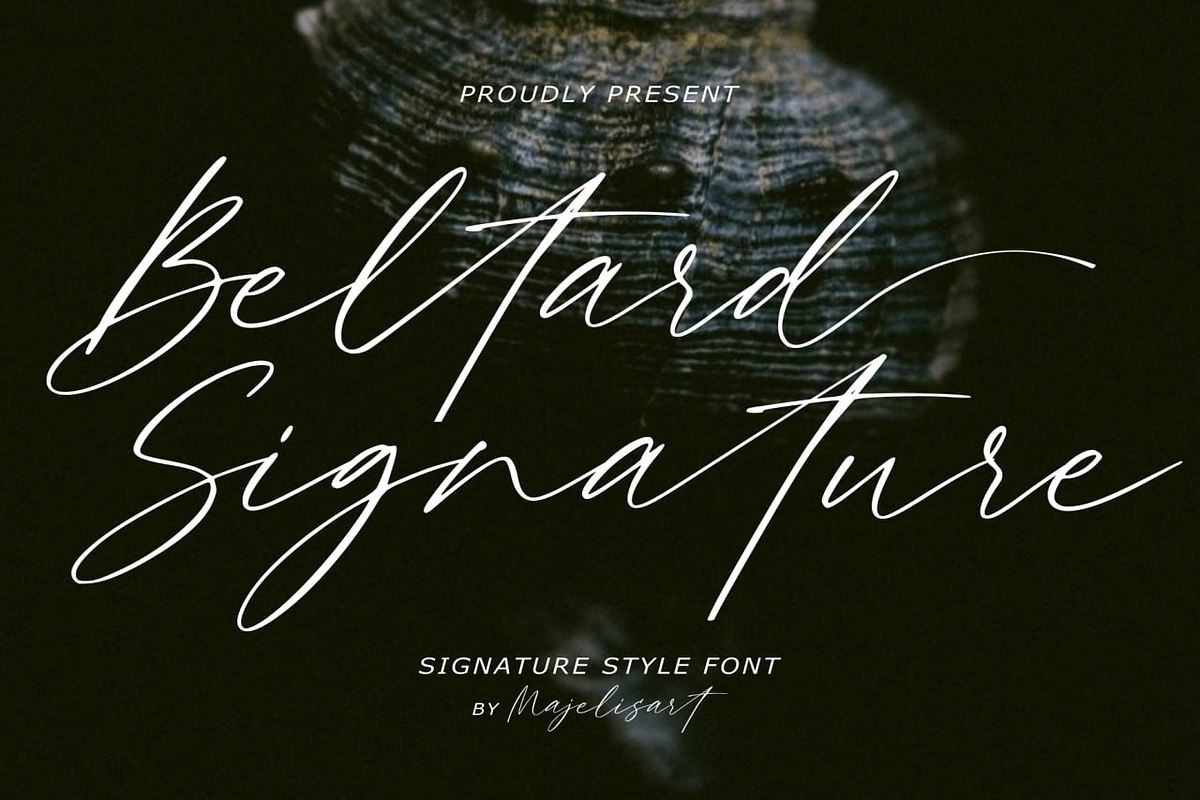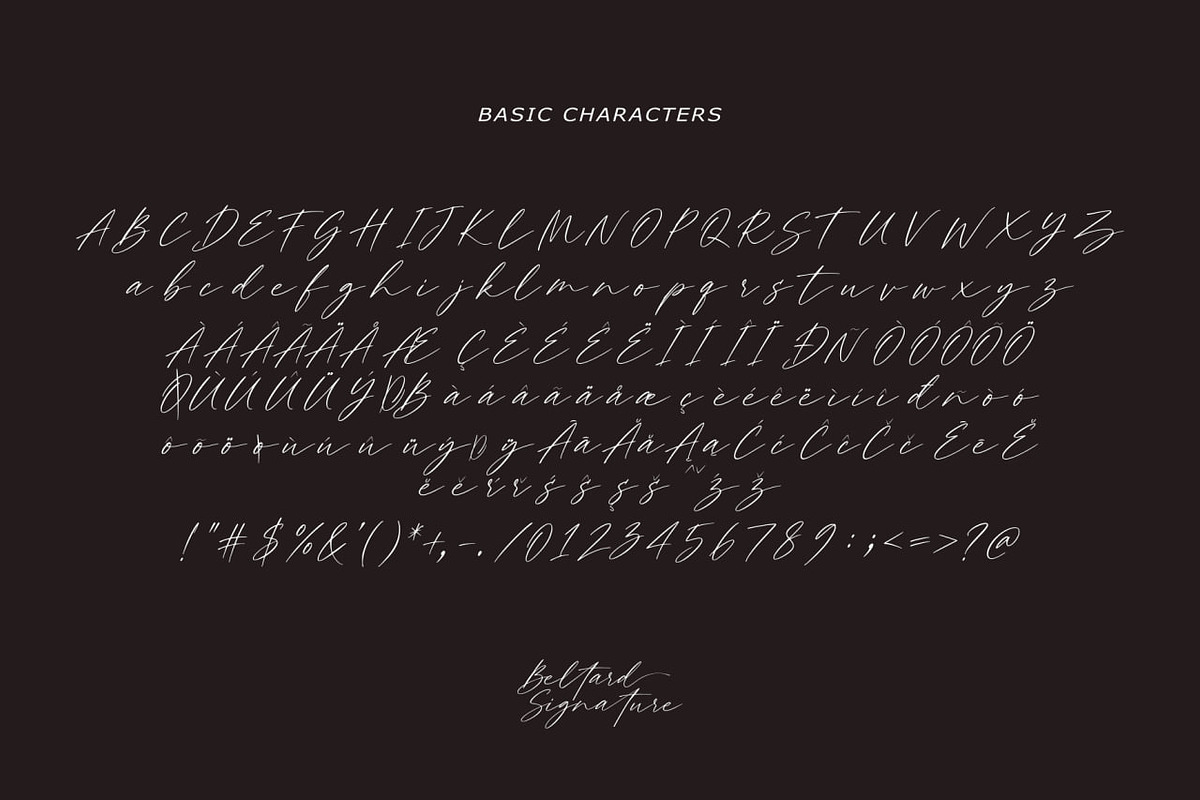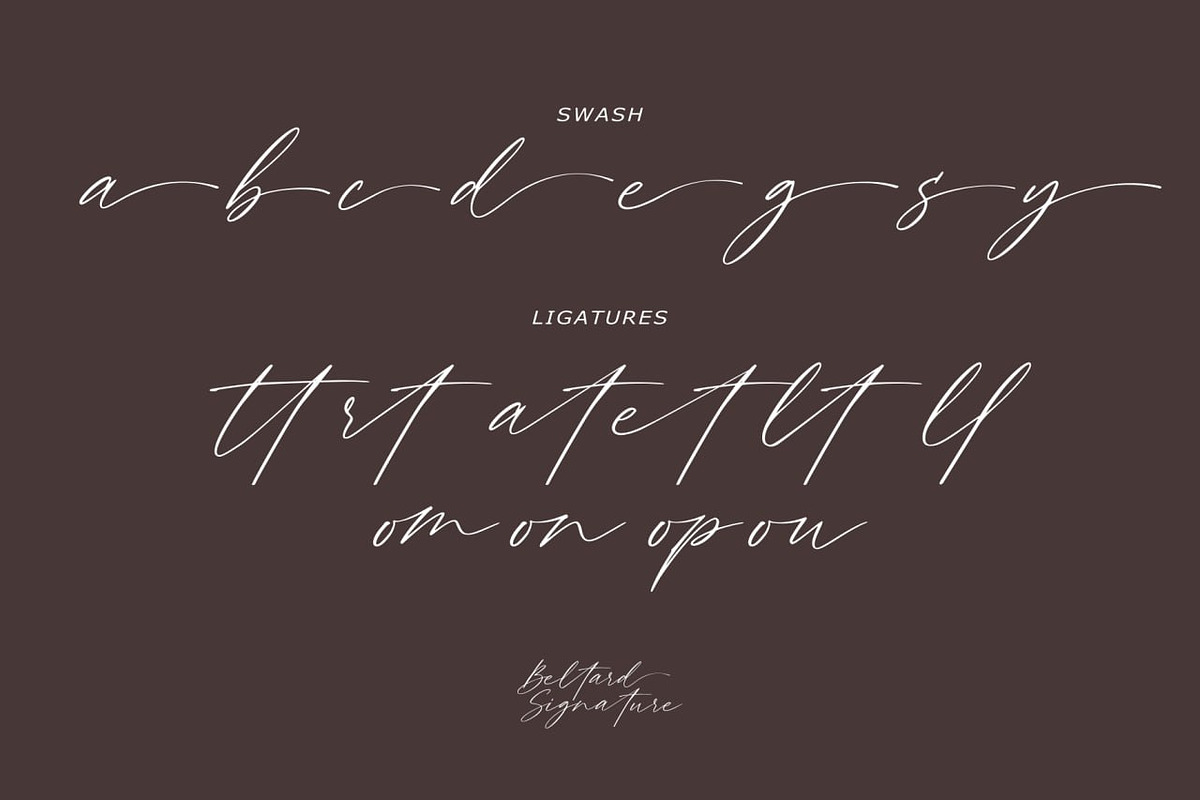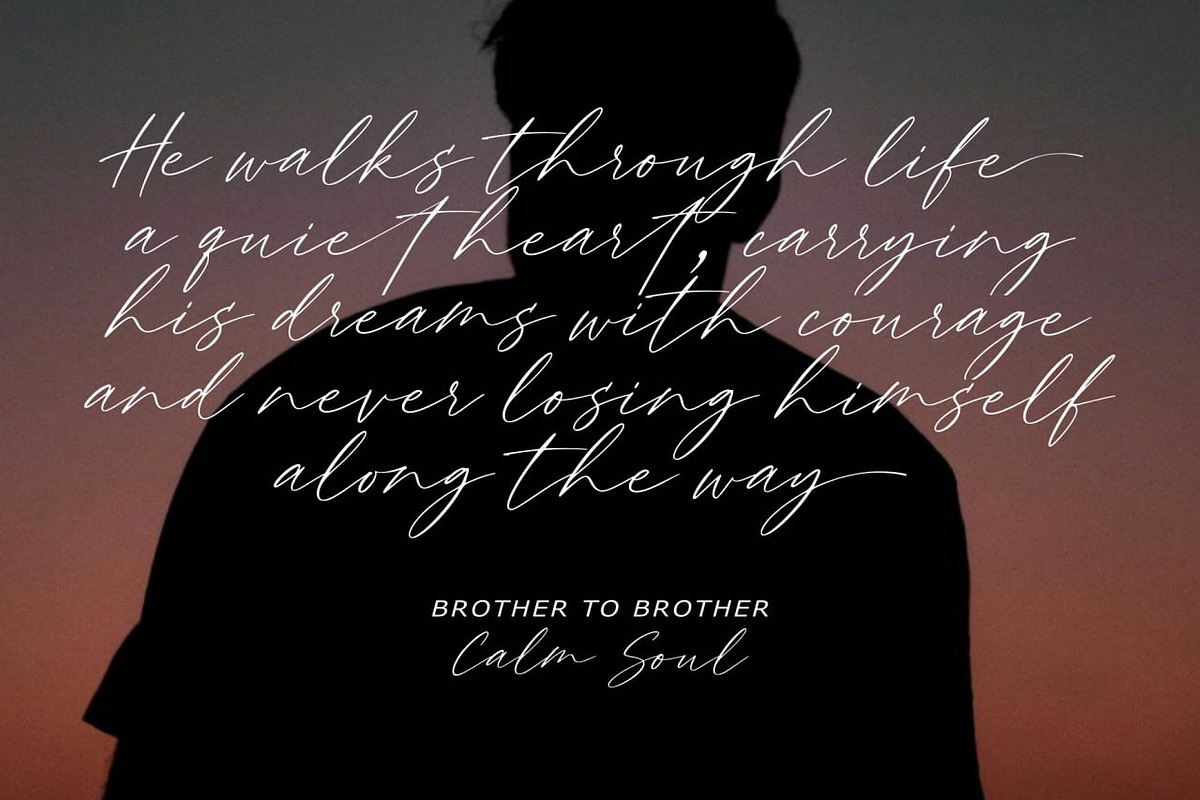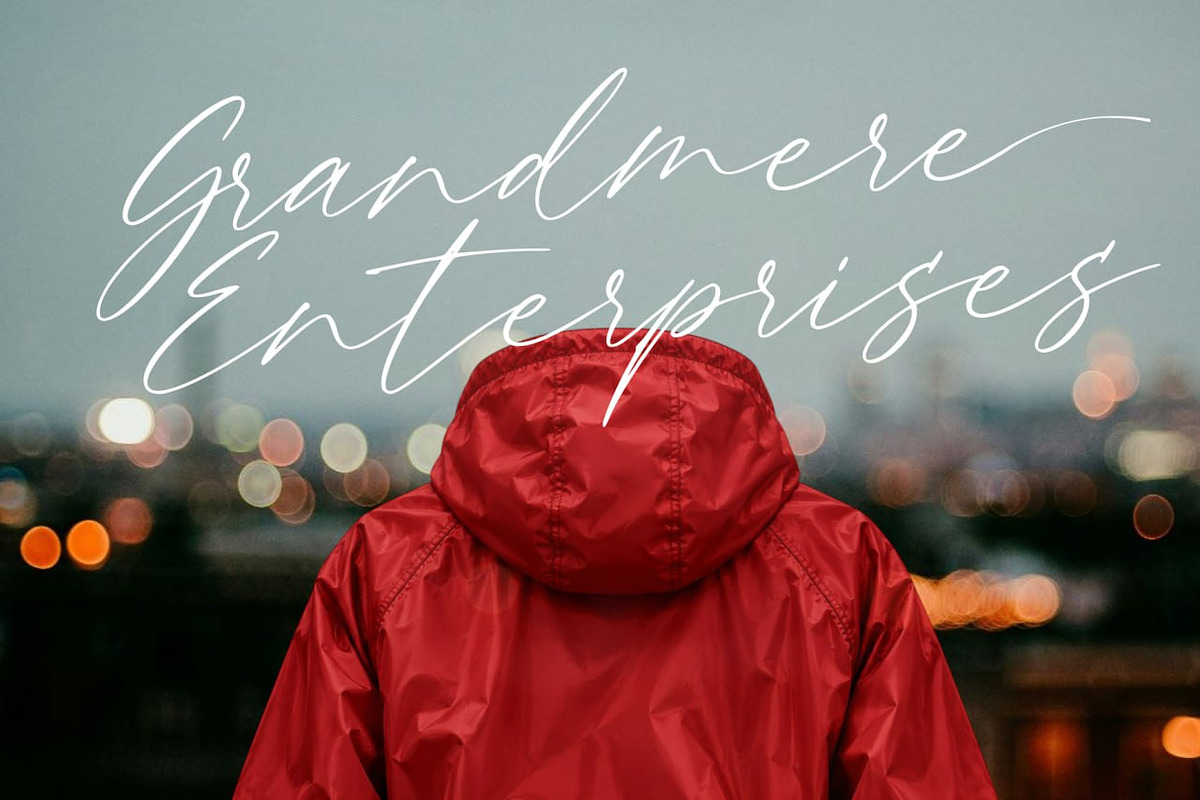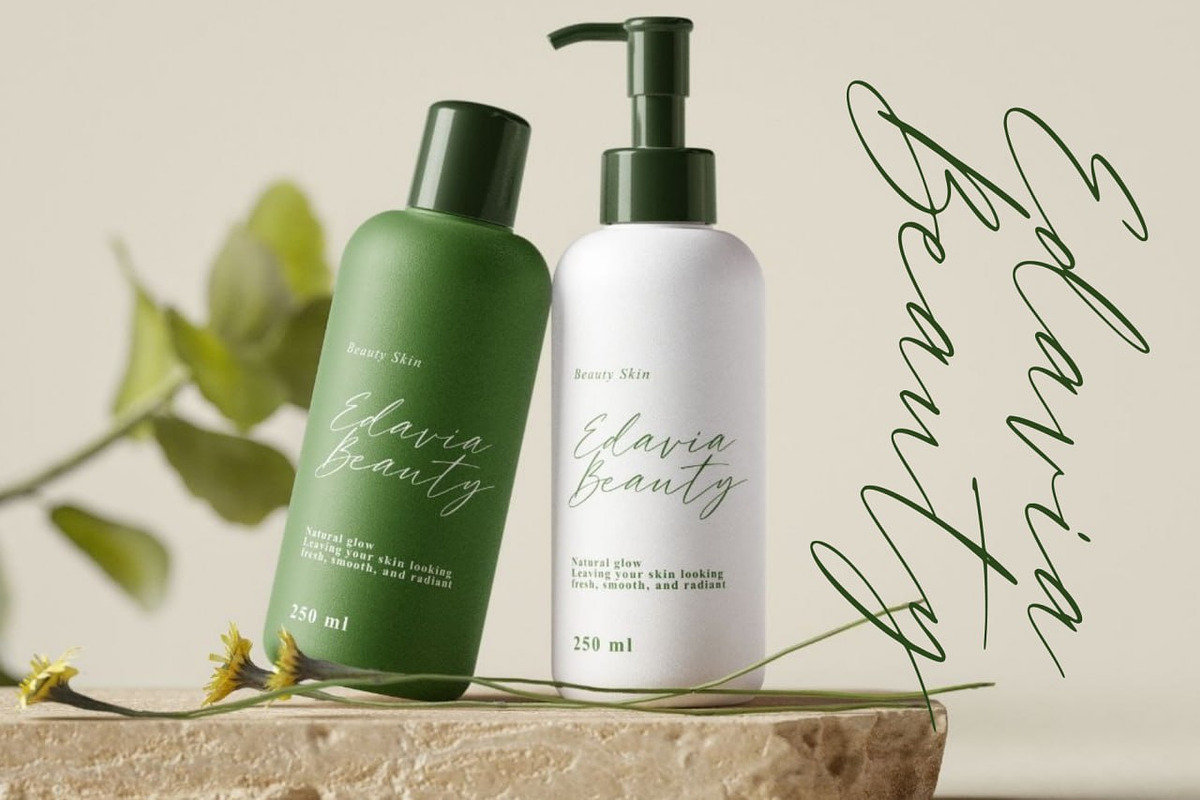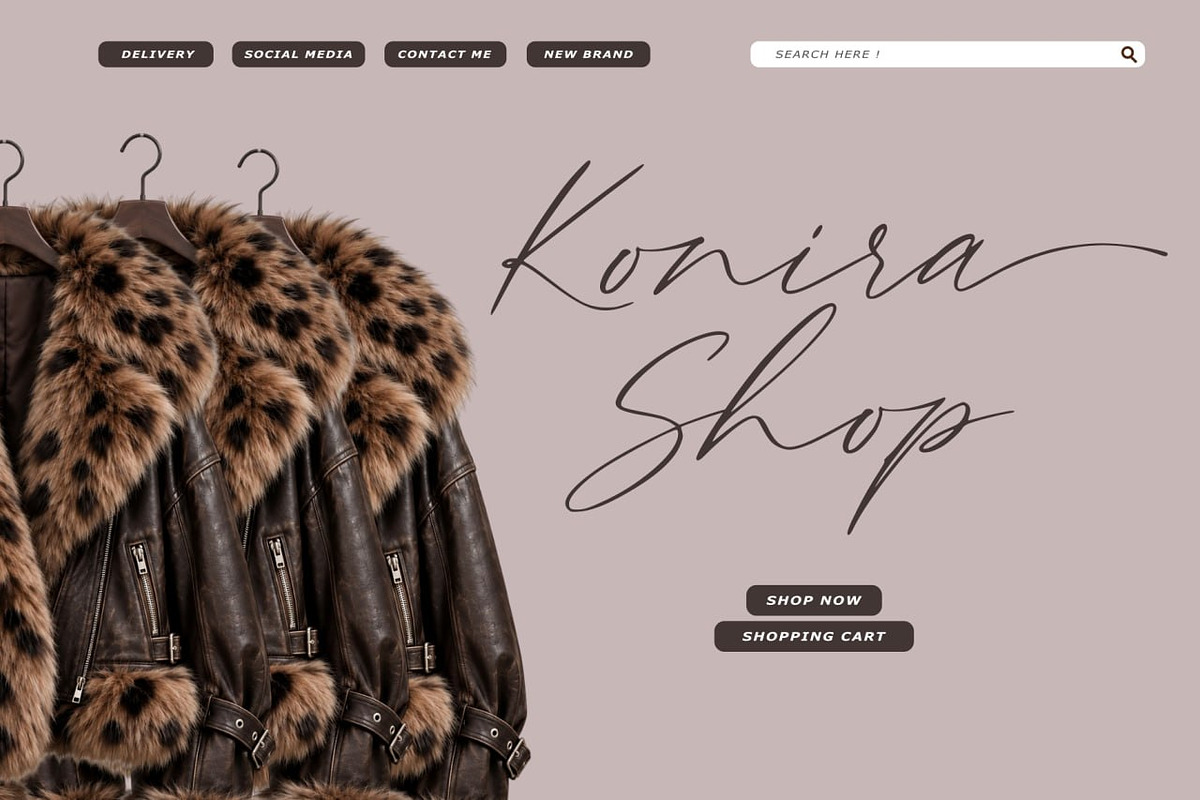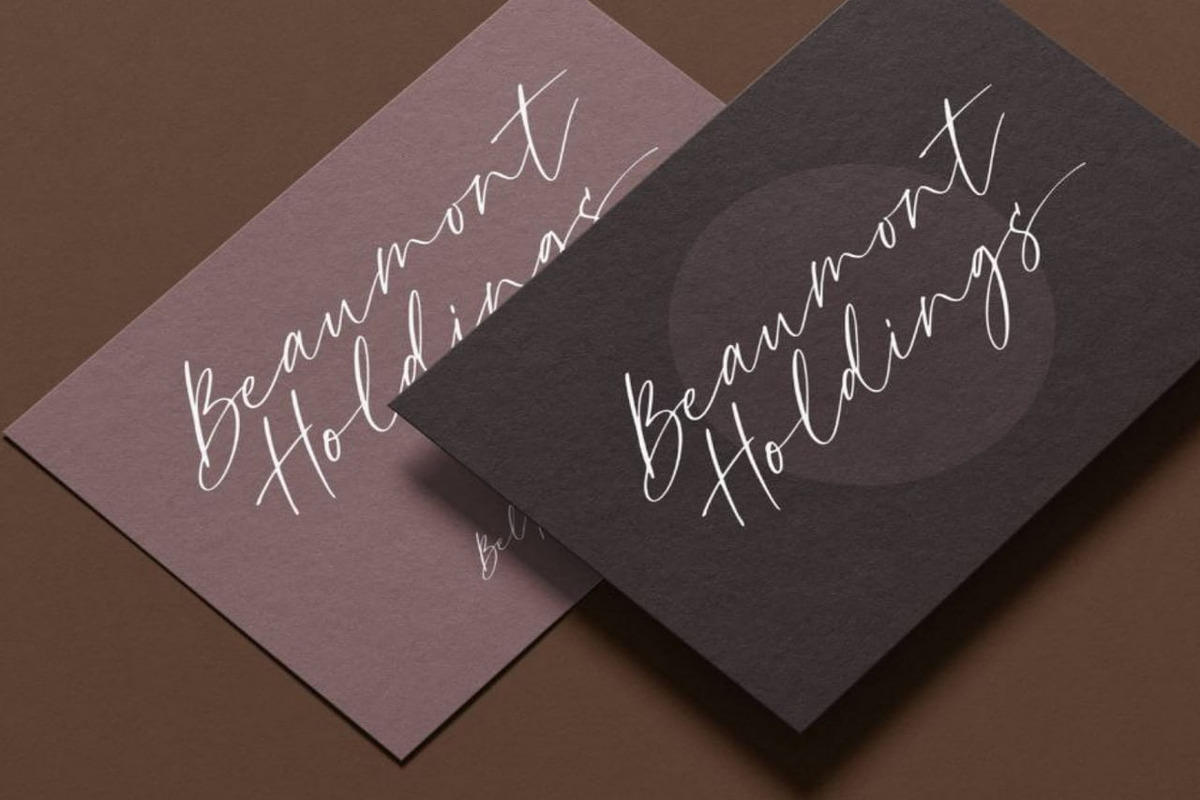
Beltard - Signature font
Beltard — Signature Font
Introducing Beltard, an elegant and expressive Signature Font designed with a natural handwritten flow. Its long sweeping strokes, delicate curves, and extended swashes create a sophisticated handwritten signature appearance.
Beltard is perfect for adding a personal, stylish, and luxurious touch to creative projects.
Beltard — elegant strokes, personal expression.